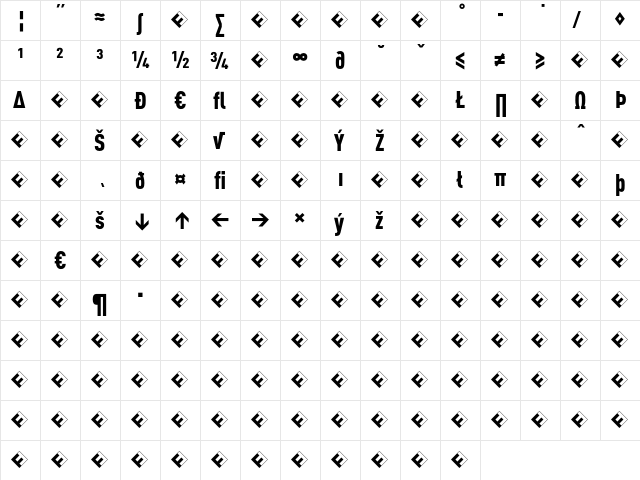
DINCond-BlackExpert Regular
Design Context for DINCond-BlackExpert Typeface
DINCond-BlackExpert is a composed and adaptable typeface that performs quietly and consistently across a wide range of design contexts. Its narrow stance lets it pack a punch even in space-constrained designs.
Pro Tip: Pair DINCond-BlackExpert with a font of contrasting weight or personality to build a more expressive typographic hierarchy.